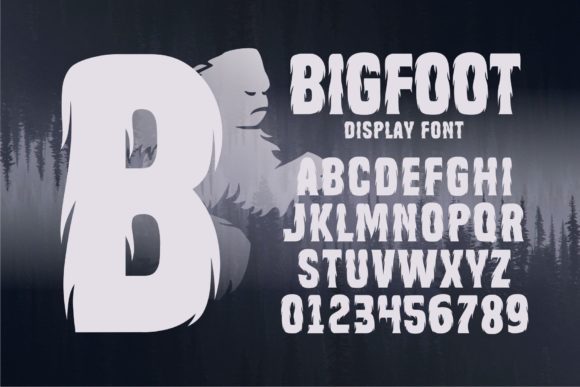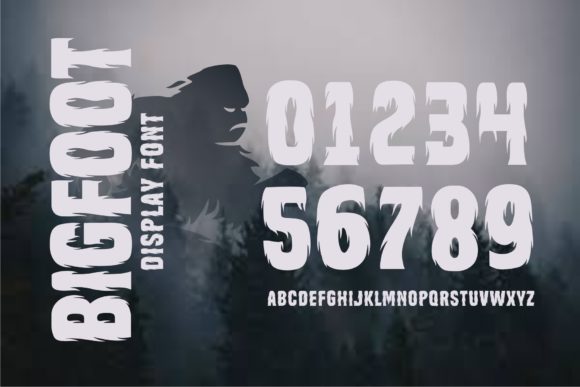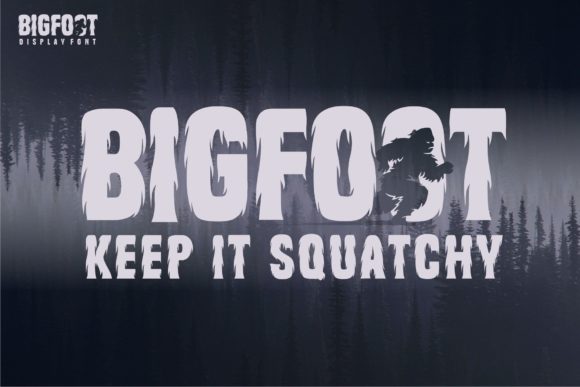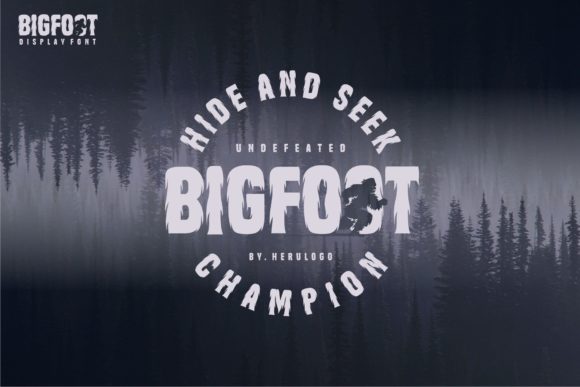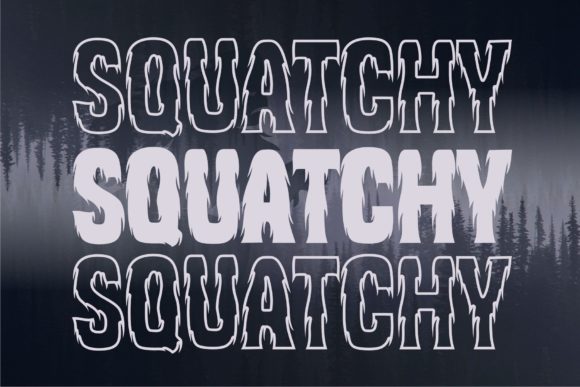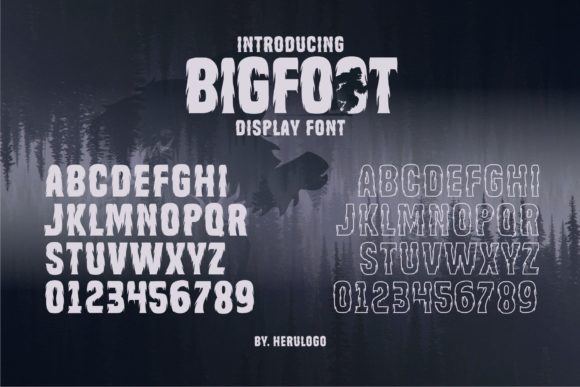
Unleash Your Creativity with Bigfoot Font: A Cool Brushed Display Font
Are you tired of using the same old fonts in your designs? Do you want to add a touch of uniqueness and personality to your creations? Look no further than Bigfoot Font, a cool, brushed display font that’s sure to elevate your font library. In this article, we’ll explore the features and benefits of Bigfoot Font, and why it’s a must-have for designers and crafters.
The Power of Bigfoot Font
Bigfoot Font is a stunning brushed display font that’s perfect for a wide range of design projects. Its unique, hand-crafted aesthetic gives it a distinctive look that’s both modern and edgy. Whether you’re working on a logo, poster, or social media graphic, Bigfoot Font is sure to make a statement. Its versatility and flexibility make it an excellent addition to any font library, allowing you to experiment with different styles and effects.
Key Features of Bigfoot Font
- Unique Brushed Texture: Bigfoot Font features a distinctive brushed texture that gives it a rough, organic feel. This texture adds depth and character to your designs, setting them apart from the crowd.
- High-Quality Design: Bigfoot Font is meticulously crafted with attention to detail, ensuring that every letter and symbol is clear and legible. This makes it perfect for use in a variety of design projects, from signage to digital graphics.
- Wide Range of Uses: Bigfoot Font is incredibly versatile, making it suitable for a wide range of design projects. Use it for logos, posters, social media graphics, and more.
- Easy to Read: Despite its bold, brushed texture, Bigfoot Font is surprisingly easy to read. This makes it perfect for use in designs where you need to communicate a message quickly and effectively.
Benefits of Using Bigfoot Font
So why should you choose Bigfoot Font for your design projects? Here are just a few benefits of using this amazing font:
- Adds Personality to Your Designs: Bigfoot Font is a bold, attention-grabbing font that’s sure to add personality to your designs. Its unique texture and aesthetic make it a great way to stand out from the crowd.
- Elevates Your Brand: If you’re looking for a way to elevate your brand and make it more memorable, Bigfoot Font is a great choice. Its distinctive look and feel make it perfect for use in logos, signage, and other branding materials.
- Increases Engagement: Bigfoot Font is a bold, eye-catching font that’s sure to grab attention. Use it in your designs to increase engagement and draw in your audience.
Who Can Benefit from Bigfoot Font?
Bigfoot Font is a versatile font that’s suitable for a wide range of designers and crafters. Here are just a few examples of who can benefit from this amazing font:
- Graphic Designers: Bigfoot Font is a great addition to any graphic designer’s font library. Its unique texture and aesthetic make it perfect for use in a wide range of design projects.
- Signmakers: If you’re a signmaker looking for a bold, attention-grabbing font, Bigfoot Font is a great choice. Its brushed texture and high-quality design make it perfect for use in signage.
- Crafters: Bigfoot Font is also a great choice for crafters who want to add a personal touch to their projects. Use it to create unique and eye-catching designs for your craft projects.
In conclusion, Bigfoot Font is a cool, brushed display font that’s sure to elevate your font library. Its unique texture and aesthetic make it perfect for use in a wide range of design projects, from logos to signage. With its high-quality design, versatility, and ease of use, Bigfoot Font is a must-have for designers and crafters. So why wait? Download Bigfoot Font today and start creating stunning designs that grab attention!